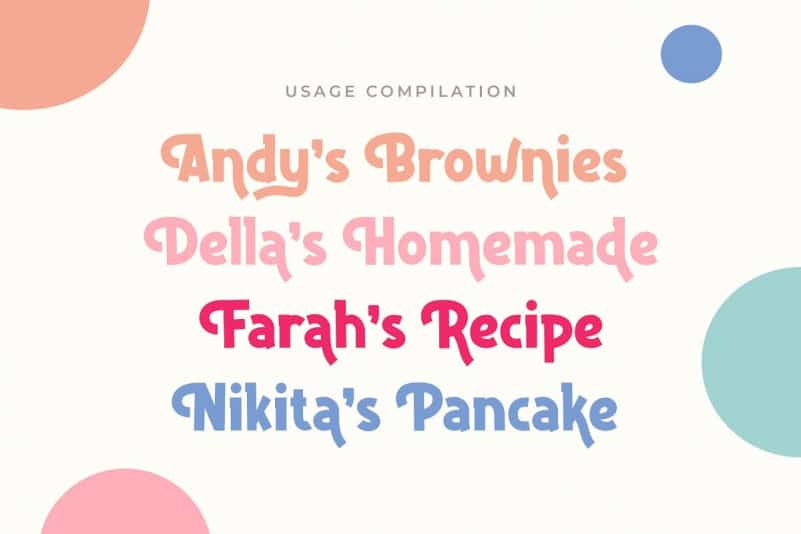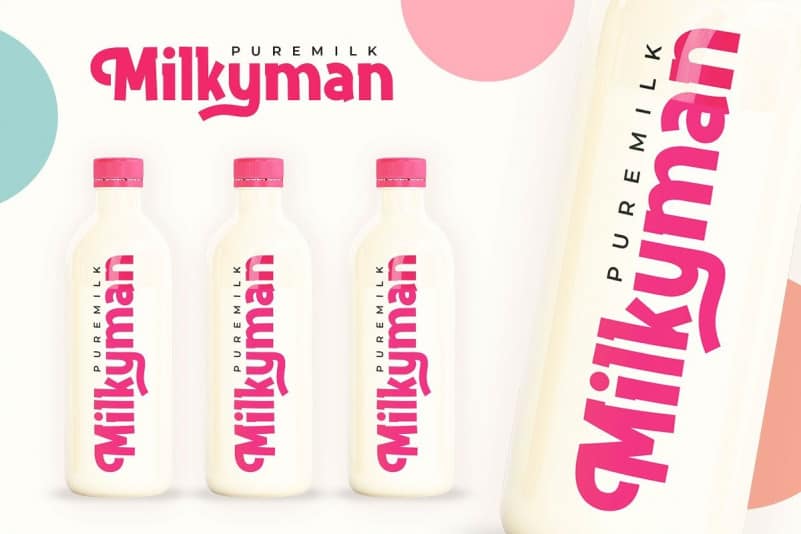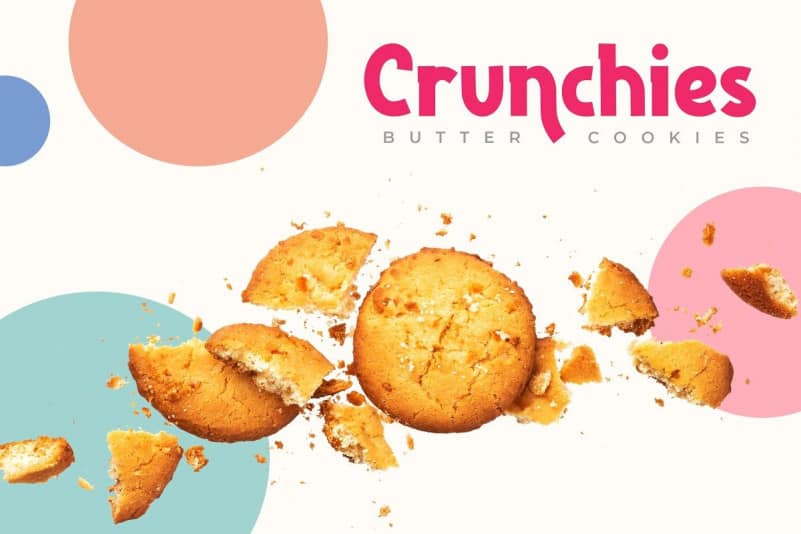
Delninoys – Stylish Playful Sans Font is display/headline font, can be used to present your ideas in sport/fitness or editorial, in advertisements and large headlines. Add some bold uniqueness to your designs! Delninoys – Stylish Playful Sans Font is a cute display font, carefully created to become a true favorite. Its casual charm makes it appear wonderfully down-to-earth, readable and, ultimately, incredibly versatile. Delninoys will look outstanding in any context, whether it’s being used on busy backgrounds or as a standalone headline!
Delninoys